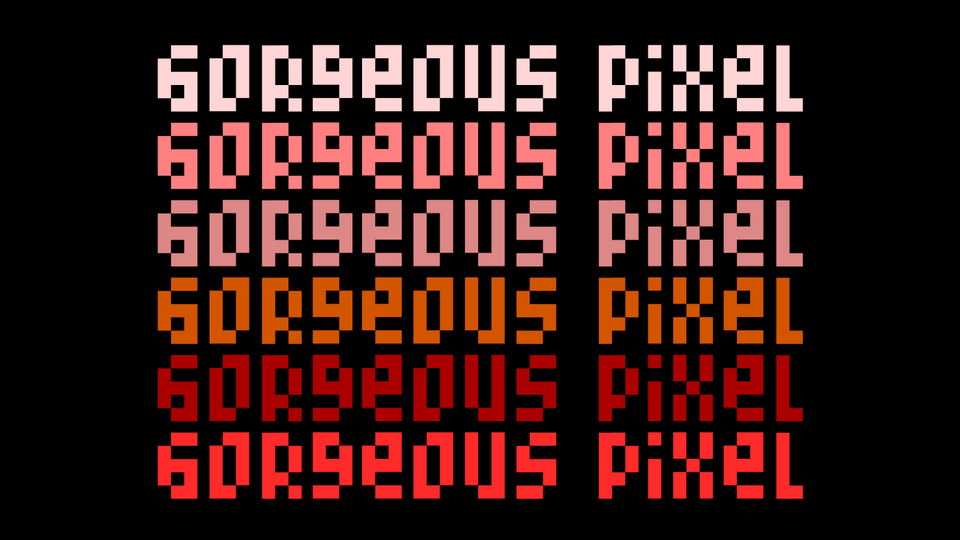
Download Gorgeous Pixel font, a minimalistic pixel typeface based on a grid 3×4. The font is perfect for poster, web, app, games illustrations, badges and other artworks.